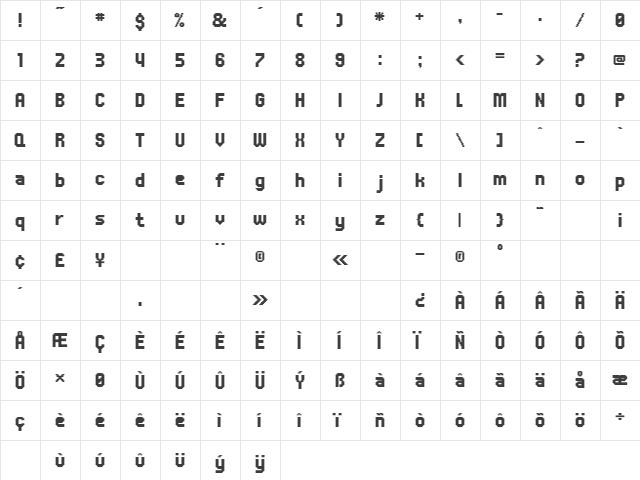
UNDAVertical Regular
Design Context for UNDAVertical Typeface
UNDAVertical is a composed and adaptable typeface that performs quietly and consistently across a wide range of design contexts.